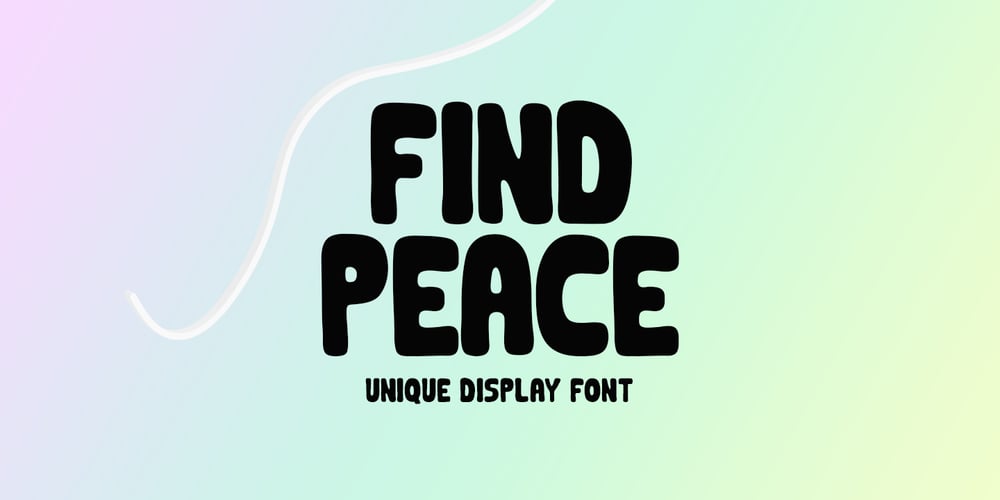
Find Peace Font Family was designed by Md Shohail Bhuian and published by Seemly Fonts. Find Peace contains 1 styles and family package options. Presenting Find Peace is a standout display font that’s ideal for giving your designs a special touch. If you use this font, your design will seem appealing. Apply it for print design, photo frames, flyers, record covers, stationery, t-shirts, image sliders, paper, and more.